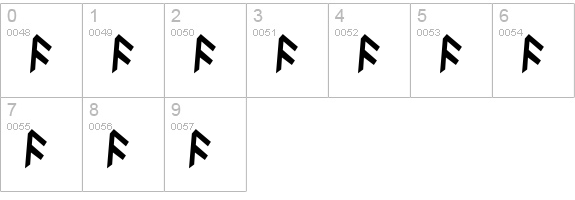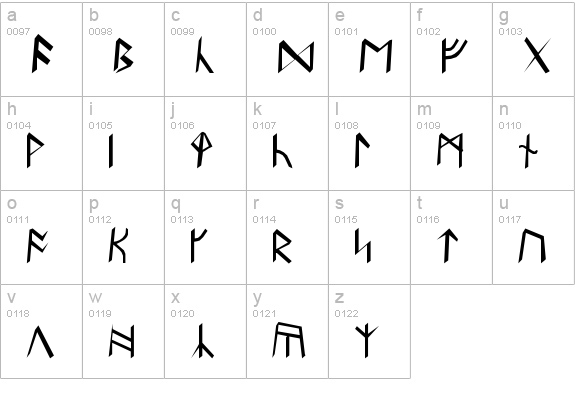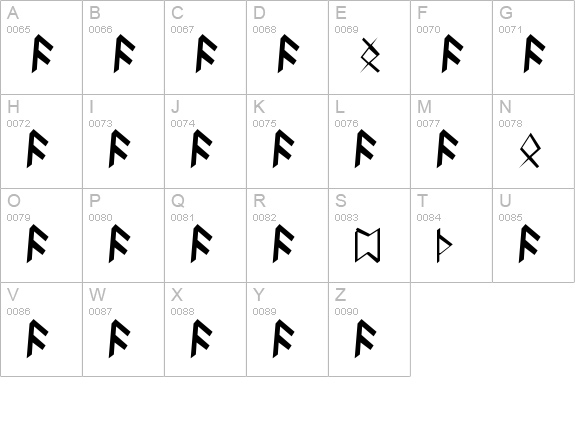
The Britannian Runes font is a mystical and ancient typeface that evokes a sense of magic and wonder. Inspired by the ancient symbols of the Britannian civilization, this font is perfect for adding a touch of enchantment to your designs. With its intricate, rune-like characters, Britannian Runes will transport your audience to a world of fantasy and adventure. Best of all, the Britannian Runes font is completely free to use! You can easily download this captivating font at FontsMarket.com and start incorporating its unique charm into your projects today. Let the Britannian Runes font unleash your creativity and bring a touch of magic to your designs.